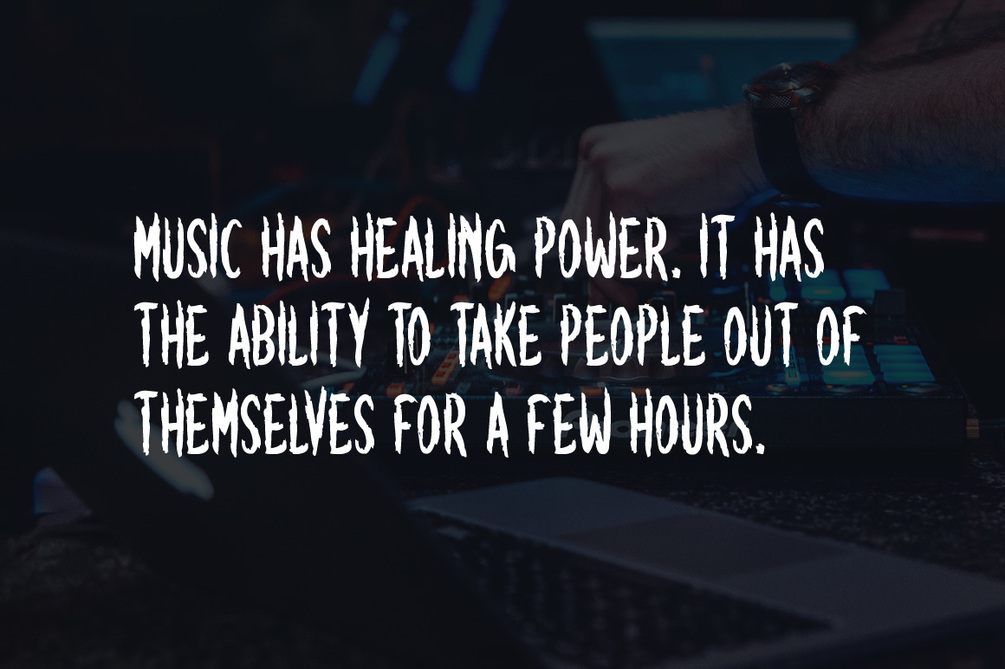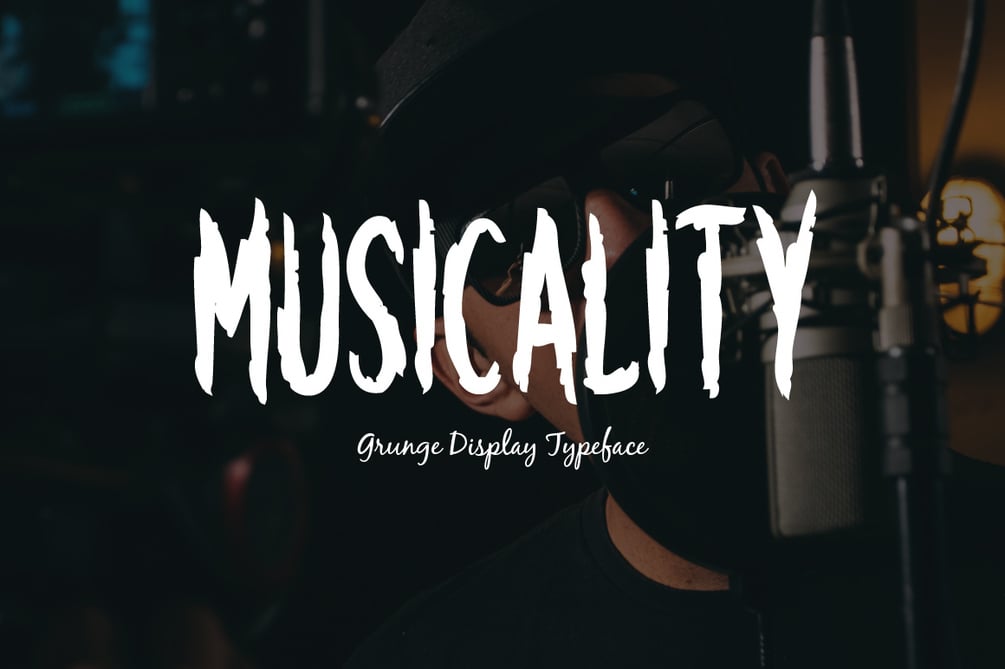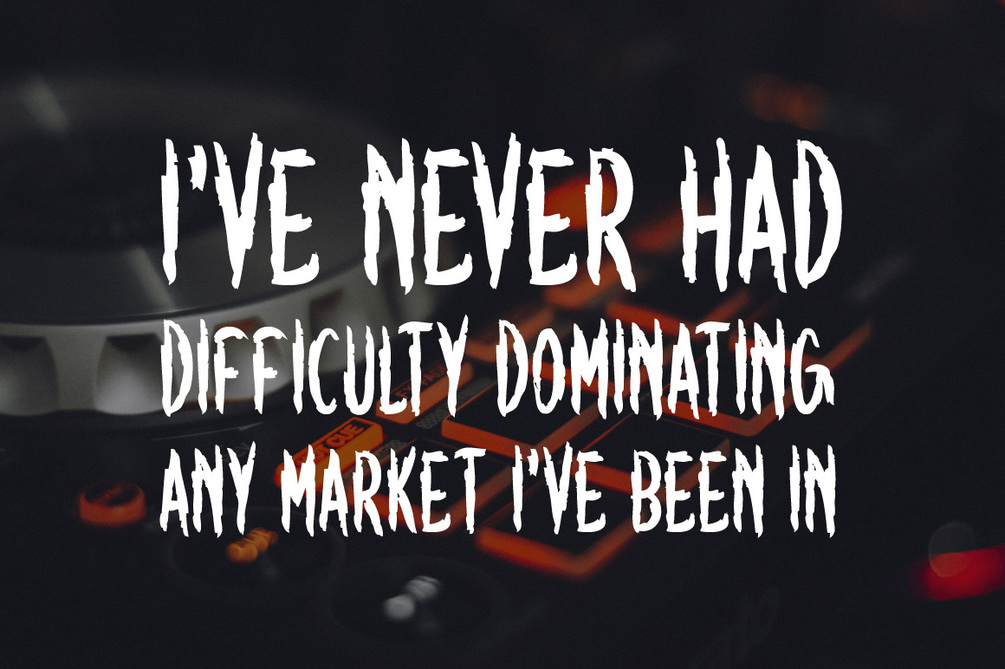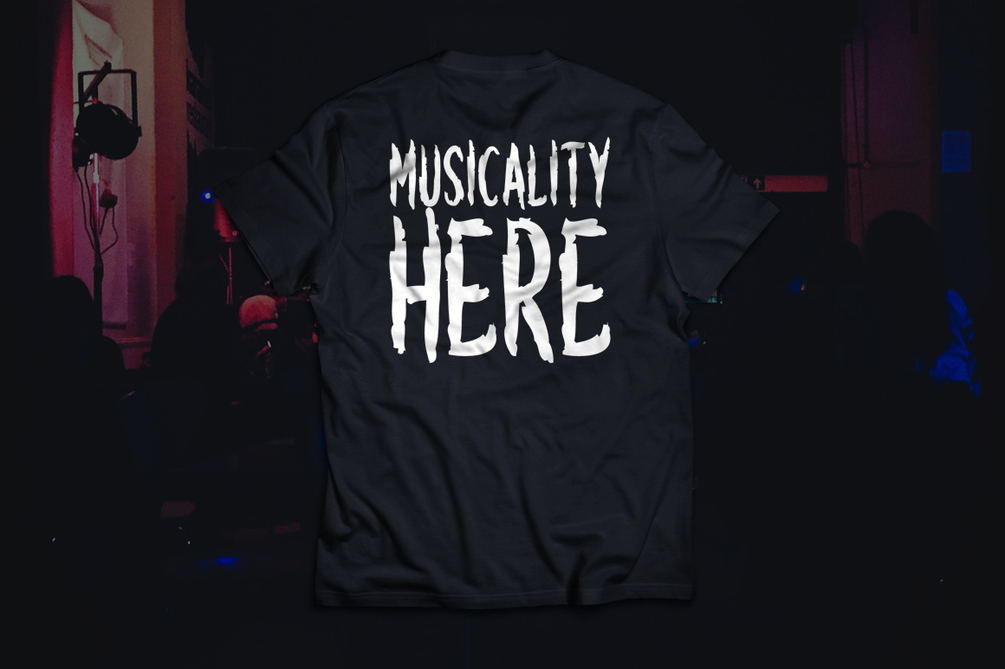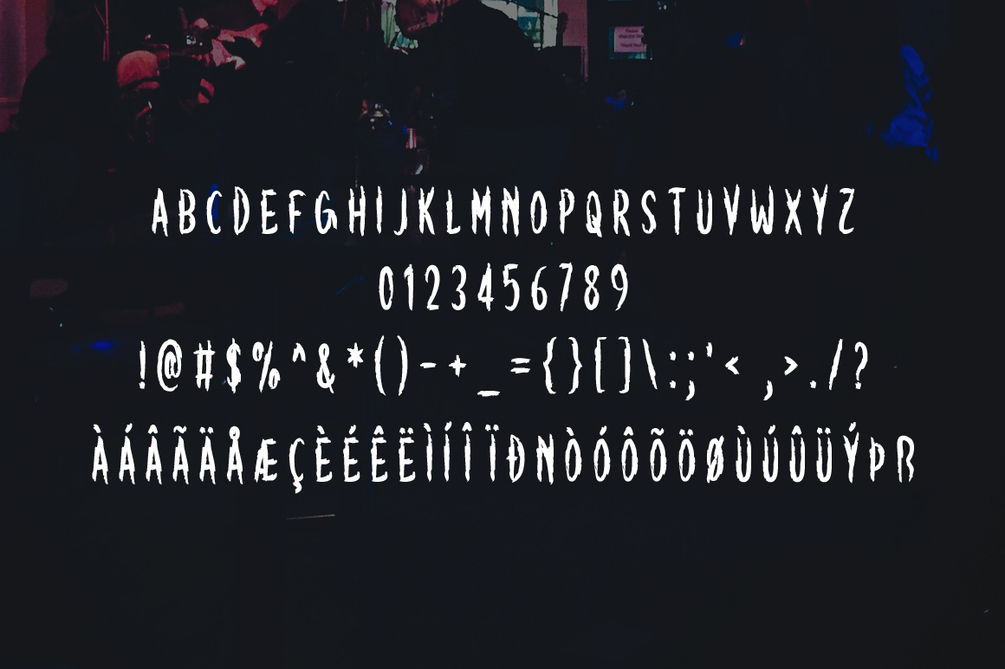
Musicality Typeface
Musicality is a brand new grunge display font. Musicality is perfectly suited for stationery, logos, t-shirt, paper, print design, website header, photo frame, flyer, music cover, poster, image slider and much more.
Includes a range of multilingual support